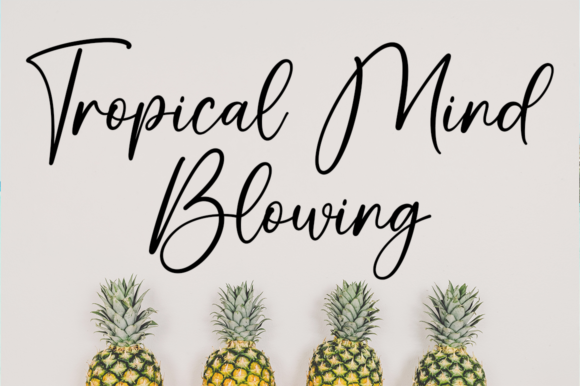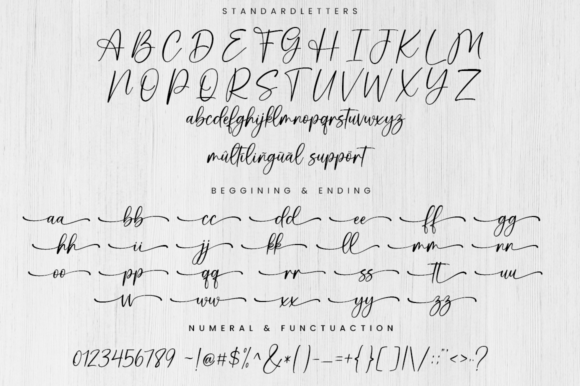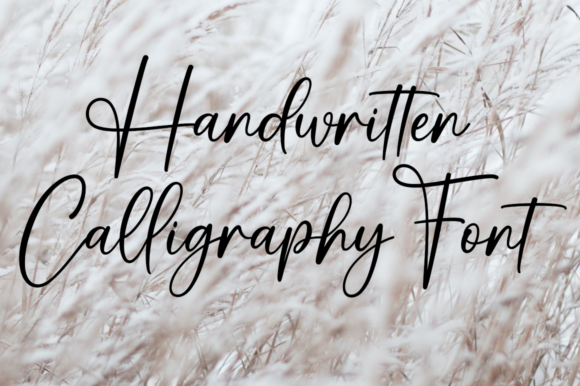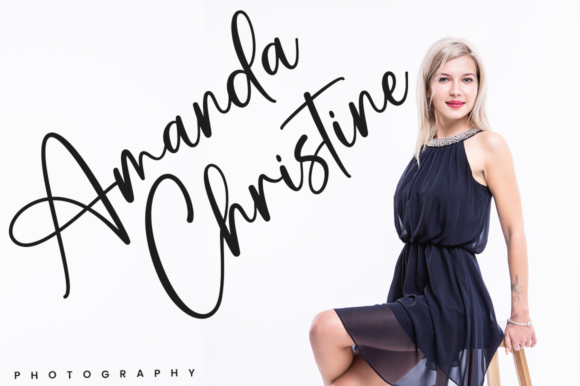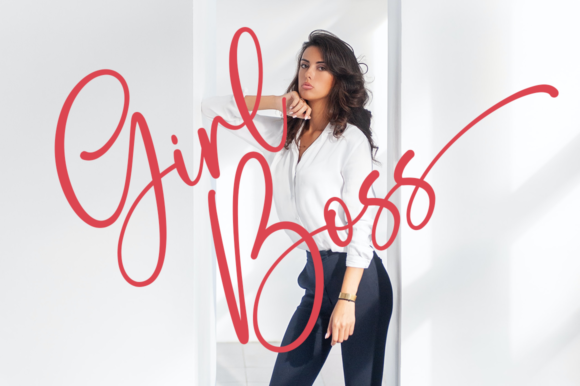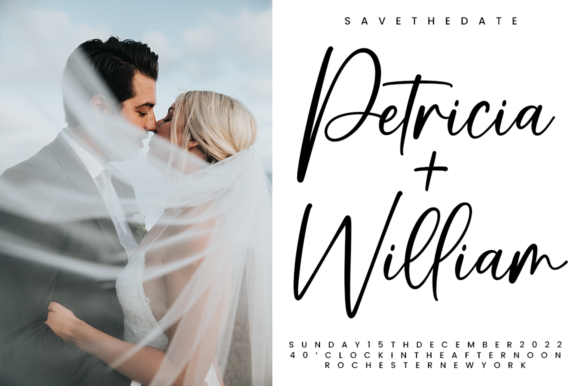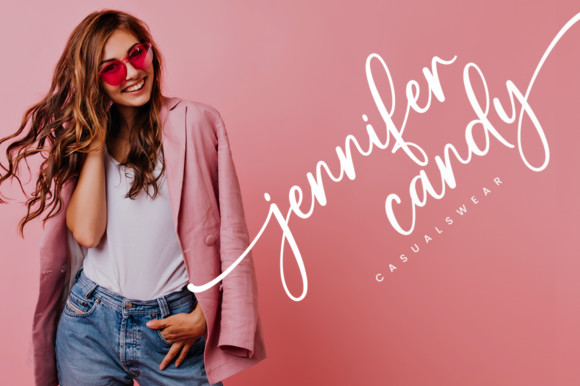
Stay Dreaming Font
About Stay Dreaming Font
Stay Dreaming feels equally charming and elegant. It looks stunning on wedding invitations, thank you cards, quotes, greeting cards, logos, business cards and every other design which needs a handwritten touch.